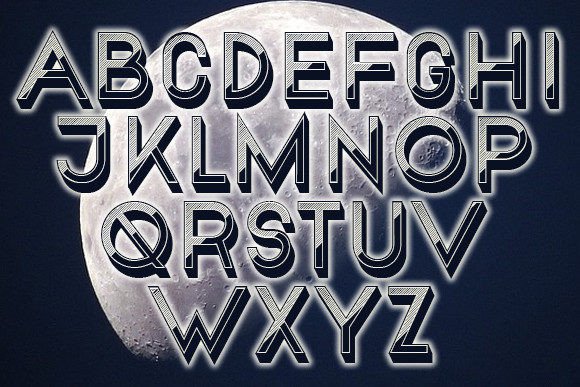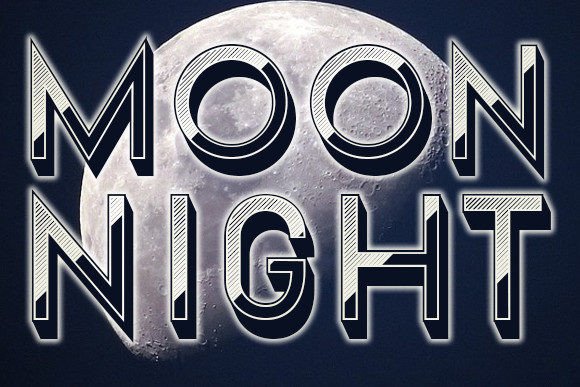
The Perfect Typography for Your Next Design Project
Have you ever stared at a blank canvas, waiting for the perfect idea to strike? Maybe it’s the late night hours, the dim lighting, or the silence that sparks creativity. Whatever it is, that’s when the magic happens, and you see your vision come to life. And, for many of us, typography is a crucial part of that magic.
That’s where Bulan Font comes in – a beautiful, decor typeface designed to elevate your designs and leave a lasting impression. Whether you’re working on posters, flyers, or anything in between, Bulan Font is the perfect addition to make your creations stand out. As a designer, you know how valuable it is to have the right tools at your disposal, and Bulan Font is certainly one of them.
Bulan Font Key Features
- Font Family: Bulan Font is a sans-serif font family designed specifically for digital displays.
- Character Set: The font family includes a wide range of characters, including Latin, Cyrillic, and Greek scripts, making it suitable for multilingual designs.
- Font Size: The font is designed to be highly legible at various font sizes, from 10 to 24 points, and is optimized for use on digital displays with a resolution of 72-144 dpi.
- Unique Characteristics: Bulan Font features a unique geometric design with clean lines and a modern aesthetic, making it ideal for modern branding and digital interfaces.
Bulan Font Review
Overall, I have mixed feelings about the Bulan Font. There are some aspects that I truly appreciate, but some limitations hold it back from being a top-tier font.
- The Bulan Font has a beautiful, unique aesthetic that sets it apart from more common fonts.
- Its high contrast between thick and thin lines gives it a dynamic feel that can add visual interest to any design.
- The font’s versatility allows it to work well in both body text and headlines.
- The Bulan Font’s irregularities can make it difficult to read, especially in large blocks of text.
- The font’s high contrast may not be suitable for all audiences, particularly those with visual impairments.
- The font’s unique aesthetic may not be to everyone’s taste, which could limit its appeal.
The Bulan Font is a bold, eye-catching choice that can add a touch of personality to any design. However, its limitations should be carefully considered before using it for critical or large-scale text. I would recommend using it sparingly, as an accent font or in smaller blocks of text, where its unique qualities can shine without overwhelming the viewer.
Bulan Font Practical Application Guide
The Bulan Font is ideal for:
- Creating a unique and eye-catching logo
- Designing a memorable brand identity
- Adding a touch of elegance to a presentation or document